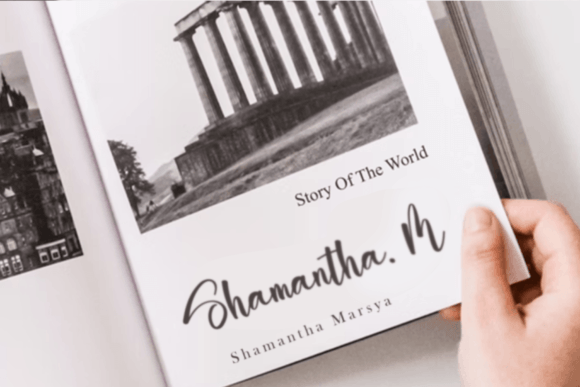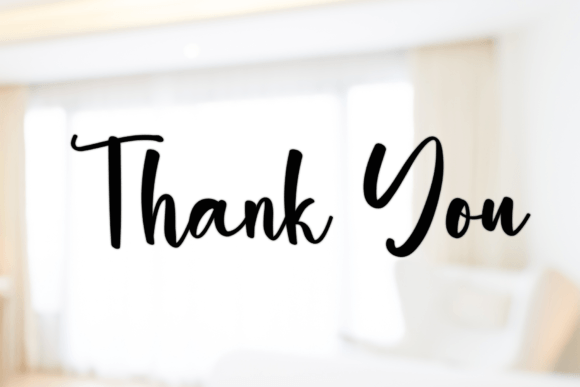
Introduction to Slowdown Font
Have you ever been working on a creative project, pouring your heart and soul into it, only to realize that the right design element is missing? For many designers, that moment of realization can be a game-changer. It’s the moment when the entire project comes together, and the magic happens. That’s exactly what the Slowdown Font can do for your next design project.
As a beautiful handwritten font, Slowdown Font is ideal for logos, wedding stationery, photography watermarks, modern websites, and more. Its incredibly distinct and timeless style will make your designs stand out from the crowd, and its high-quality design makes it perfect for free download. With a transparent background, the Slowdown Font is a versatile design resource that can elevate any creative project.
Whether you’re a seasoned designer or just starting out, the Slowdown Font is a valuable addition to your design toolkit. Its unique style and high-quality design make it a must-have for any creative project, and its free download makes it accessible to designers of all levels.
Key Features of Slowdown Font
- High-quality, vector-based font design for use in various creative projects
- Transparent background for seamless integration with various design elements
- Includes a range of glyphs and characters for diverse language support
- Available in multiple font sizes, with a recommended resolution of 300 DPI for optimal display
- Designed to be highly customizable, allowing for easy modification and manipulation
- Perfect design resource for graphic designers, digital artists, and other creatives working on various projects
Honest Review: Slowdown Font
I recently had the chance to work with the Slowdown Font, and I’m excited to share my thoughts on this design resource. Overall, I was impressed with the high quality and versatility of this font.
What works well is the clean and minimalist aesthetic of the Slowdown Font, making it perfect for a variety of creative projects. The font is available for free download, which is a huge plus for designers on a budget.
- ✨ Easy to read on a transparent background, which is great for creating modern and sleek designs.
- ✨ Highly customizable, allowing designers to adjust the font to fit their specific creative project.
- ✨ High quality and professional-looking, making it suitable for a wide range of design applications.
However, I did encounter some limitations when working with the Slowdown Font. One of the main issues is that it may not be suitable for designs that require a bold, attention-grabbing font.
- ⚠️ Limited font styles and weights, which may limit its use in certain design scenarios.
- ⚠️ Not ideal for use in small font sizes, as the letters may become difficult to read.
Overall, I’m impressed with the Slowdown Font and would recommend it to designers looking for a high-quality, free design resource for their creative projects.
Getting the Most Out of Slowdown Font
To get the most out of the Slowdown Font, experiment with different font sizes, styles, and colors. You can also combine the font with other design elements, such as graphics and images, to create a visually appealing design.
The Slowdown Font is perfect for creative projects that require a unique and eye-catching font. Some common use cases include:
- Designing a logo or branding materials
- Creating a poster or flyer
- Designing a website or landing page